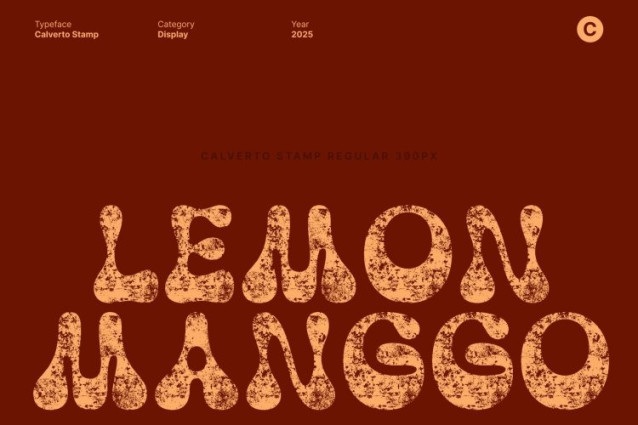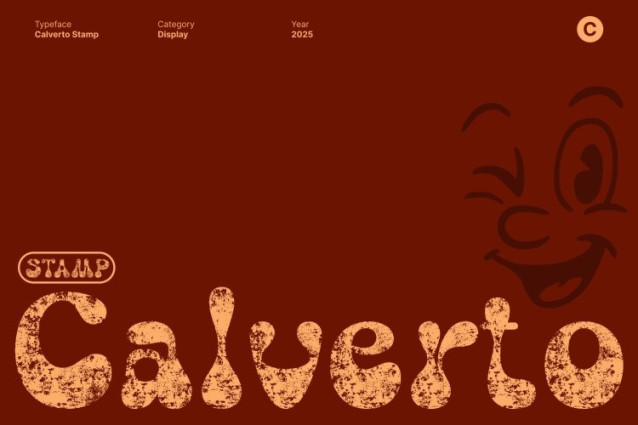
Calverto Stamp Font
Calverto Stamp Font This is a classic display font that brings the lively spirit of the 1970s back to life through its bold groovy forms and decorative curves. Every letter carries a rhythmic flow inspired by vintage typography, creating a funky, playful, and energetic presence that instantly grabs attention.
Stamp Texture for Artistic Vintage Expression
Enhancing its retro personality, this font features a distinctive stamp texture that adds depth, warmth, and handcrafted character. This textured finish gives the font an artistic and vintage feel, making it look naturally worn, tactile, and full of personality.
Perfect for Posters, Branding, and Retro Campaigns
If your project needs expressive flair, this font delivers. Its bold, decorative shapes excel in posters, branding, event promotions, social media graphics, and retro-themed campaigns. Whether you’re designing a music event, vintage merchandise, or vibrant packaging, this font brings unmistakable retro energy to the spotlight.
Versatile, Playful, and Rich in Character
This font is more than just a groovy font it’s a visual mood. It can lean playful, nostalgic, bold, or artistic depending on how it’s used, offering versatility for a wide range of creative concepts. Ideal for designers seeking a typeface that blends retro charm with textured authenticity, this font transforms ordinary layouts into standout visual experiences filled with personality and rhythm.